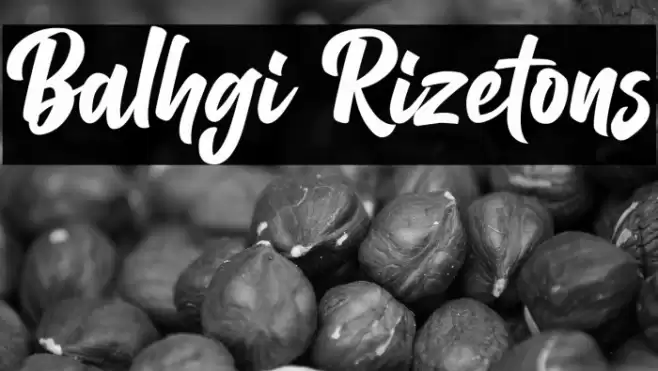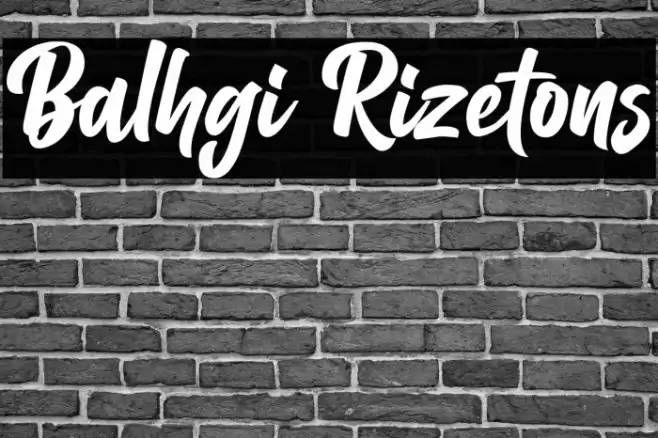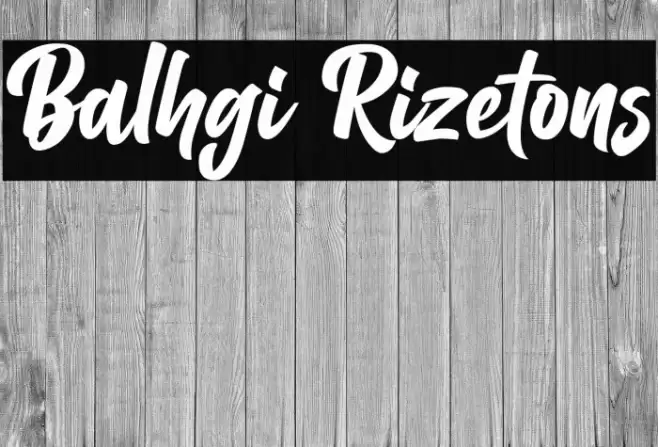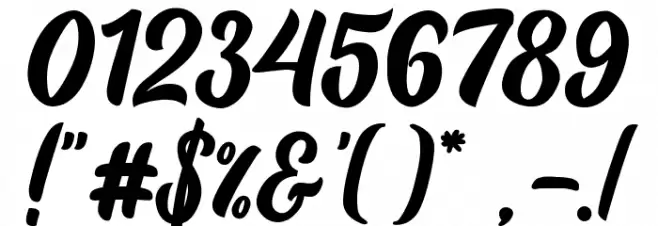
Balhgi Rizetons Font
Balhgi Rizetons Description
This font features a bold and expressive script style, characterized by its flowing, cursive letterforms. The strokes are thick and consistent, giving it a strong presence on the page. The letters are closely connected, creating a sense of movement and fluidity. The uppercase letters are particularly striking, with dramatic flourishes and loops that add a touch of elegance. The lowercase letters maintain a cohesive look, with smooth curves and a slightly playful demeanor. Numbers and special characters are designed to match the overall style, ensuring a harmonious appearance across all text elements.
A bold, expressive script font with flowing, cursive letterforms from Uncategorized fonts.
- Proposed Projects: Ideal for branding, invitations, greeting cards, and any project requiring a personal, elegant touch.
- Character Spacing: Tight
- Use Case: Logos, Headlines, Invitations